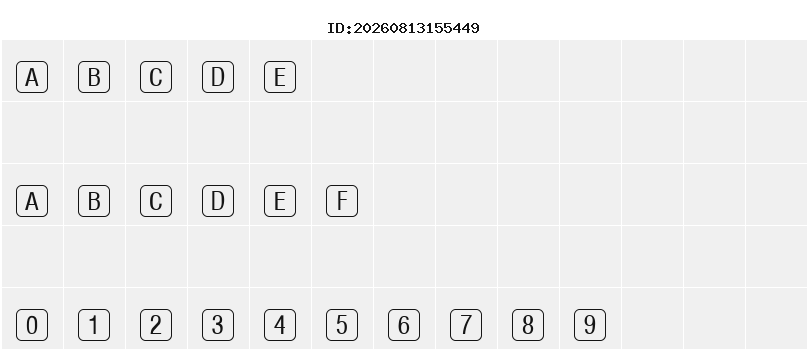
RRKeyLetters Preview
• Font Name: RRKeyLetters
• Full Font Name: RRKeyLetters Normal
About RRKeyLetters.ttf
RRKeyLetters.ttf is a modern, elegant sans-serif font designed for ultimate readability and visual harmony. Perfect for branding, headlines, web design, and print materials.